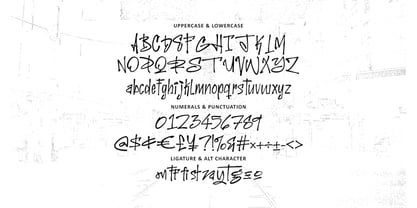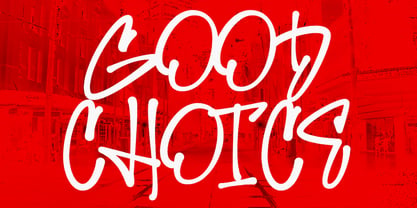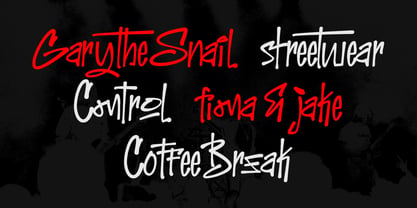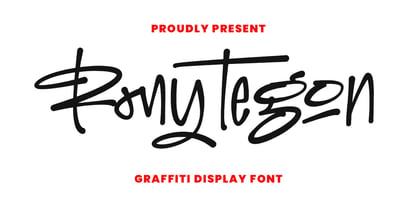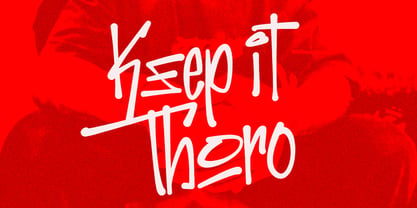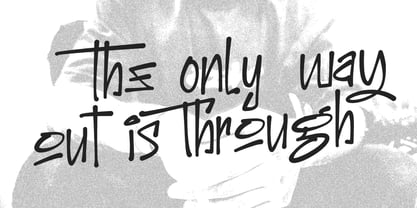
MC Rony Tegon
by Maulana Creative
The MC Rony Tegon Font Family was designed by Gilang Maulana and published by Maulana Creative. MC Rony Tegon contains 1 styles. More about this family
Unleash your creativity with Rony Tegon, a vibrant and dynamic graffiti display font that embodies the raw energy of street art. This font is meticulously crafted with authentic hand-drawn details and a rebellious spirit, making it ideal for projects that require a bold and distinctive urban edge. Whether you're designing captivating headlines, striking logos, or electrifying merchandise and social media graphics, Rony Tegon infuses an undeniable cool factor into every creation. Make a statement, break the mold, and let your designs resonate with the powerful voice of Rony Tegon.
Designers: Gilang Maulana
Foundry: Maulana Creative